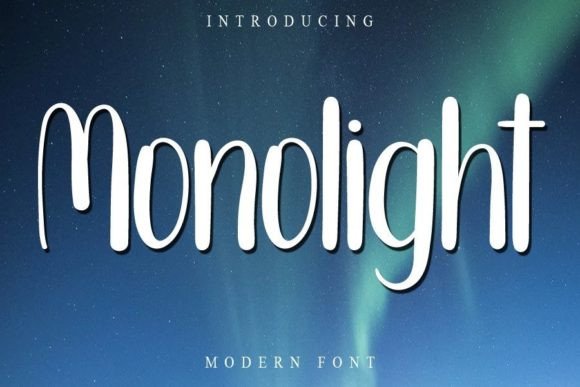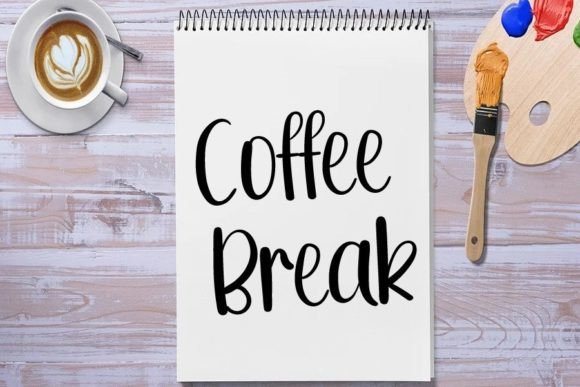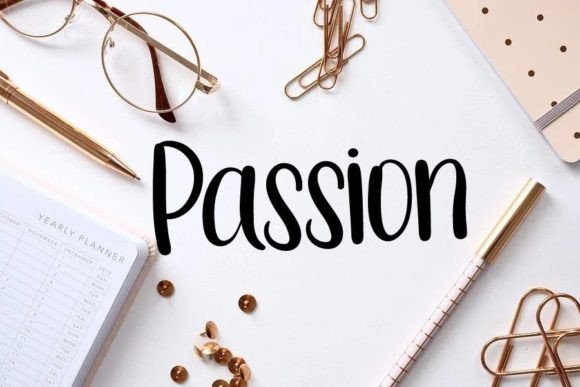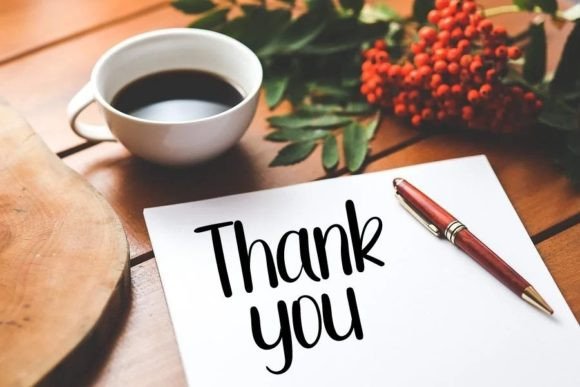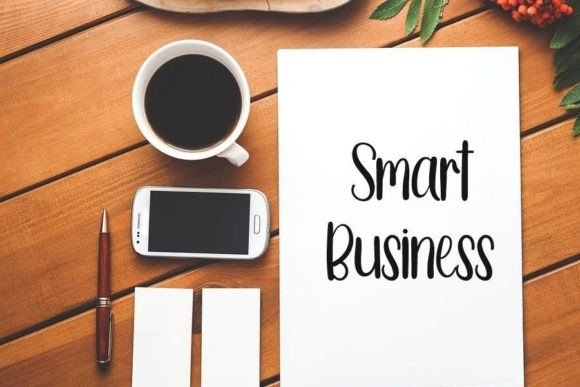
Monolight Font
About Monolight Font
Monolight emerges as a fresh and beautiful font, serving as a versatile tool for a range of design purposes. Whether applied to YouTube banners, cover logo mockups, wedding invitations, ID cards, flyers, or crafts, Monolight promises to enhance the visual appeal of your projects. With its simplicity and uniqueness, this font becomes a valuable asset that contributes to the progress and development of your business.
For YouTube banners, Monolight offers a contemporary and eye-catching style. Its fresh appearance ensures that your channel branding stands out, capturing the attention of viewers. Whether used in video thumbnails or channel art, Monolight contributes to a cohesive and visually appealing online presence.
In cover logo mockups, Monolight adds a touch of modernity and uniqueness. The font’s simplicity ensures that your logo remains clear and memorable, making it suitable for a variety of business or personal branding needs. Its versatility allows it to adapt to different design styles, contributing to a distinctive visual identity.
Wedding invitations benefit from Monolight’s elegant and contemporary appeal. The font’s beautiful design adds a touch of sophistication, making it suitable for a range of wedding themes. Whether your aesthetic is classic, modern, or somewhere in between, Monolight complements the tone of the occasion.
ID cards, as essential elements of professional branding, are enhanced by Monolight’s clean and modern aesthetic. The font’s simplicity ensures readability, while its unique characteristics add a touch of creativity to the design. Monolight contributes to a polished and professional image for your business or event.
Flyers, a medium for conveying information in a visually appealing way, are elevated by Monolight’s fresh and beautiful style. The font’s contemporary appearance ensures that your message is conveyed with impact. Whether promoting an event, product, or service, Monolight adds a touch of modernity to your promotional materials.
Crafts find a fitting companion in Monolight, where its simple and unique design can enhance various creative projects. Whether applied to handmade goods, DIY projects, or artistic endeavors, Monolight contributes to a visually appealing and cohesive result.
In conclusion, Monolight is not just a font; it’s a design asset that holds the potential to elevate your business and creative projects. Its simplicity and uniqueness make it suitable for a wide range of design contexts, ensuring that your visual communication is both impactful and memorable. Embrace Monolight to progress and develop your business with a contemporary and distinctive aesthetic.